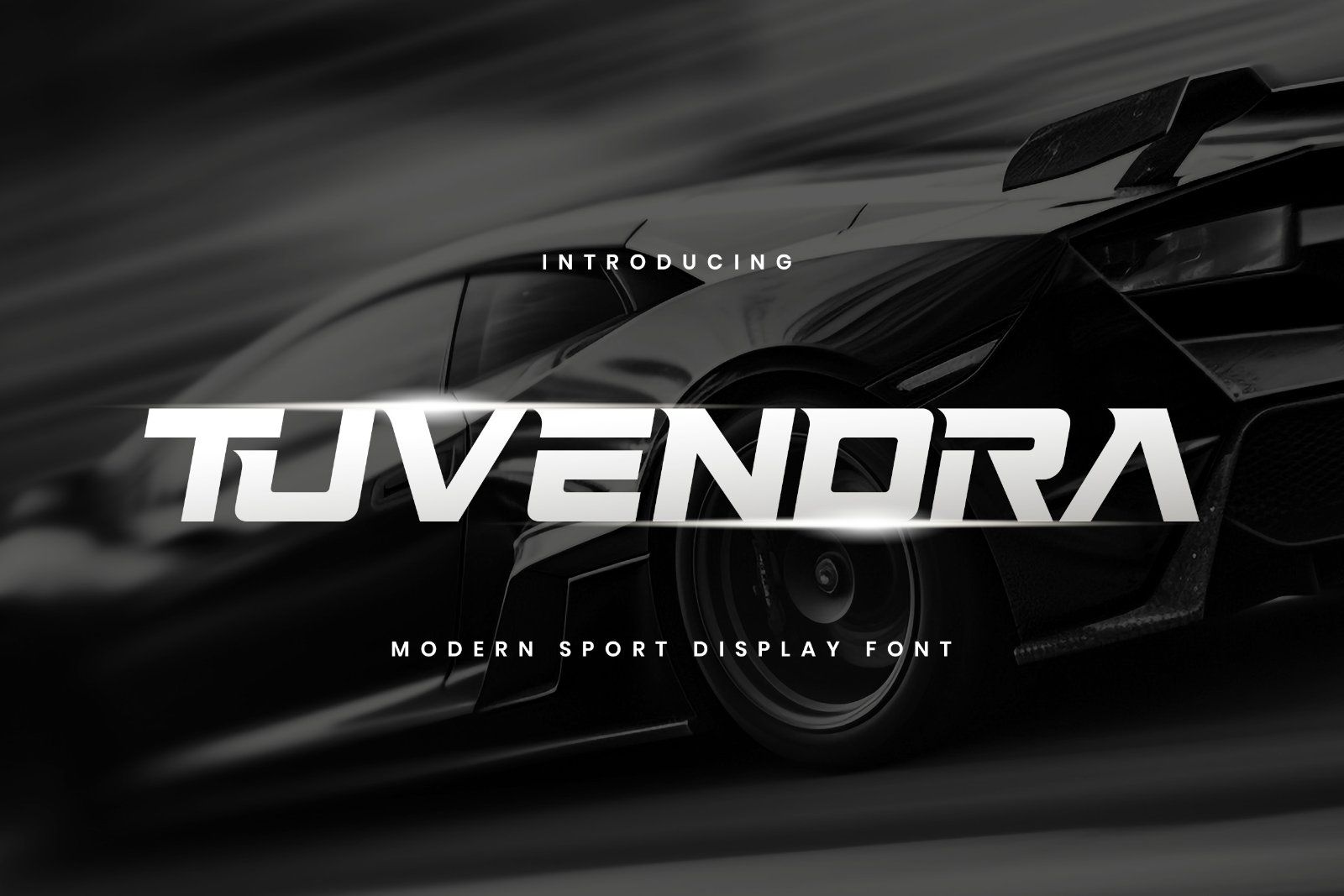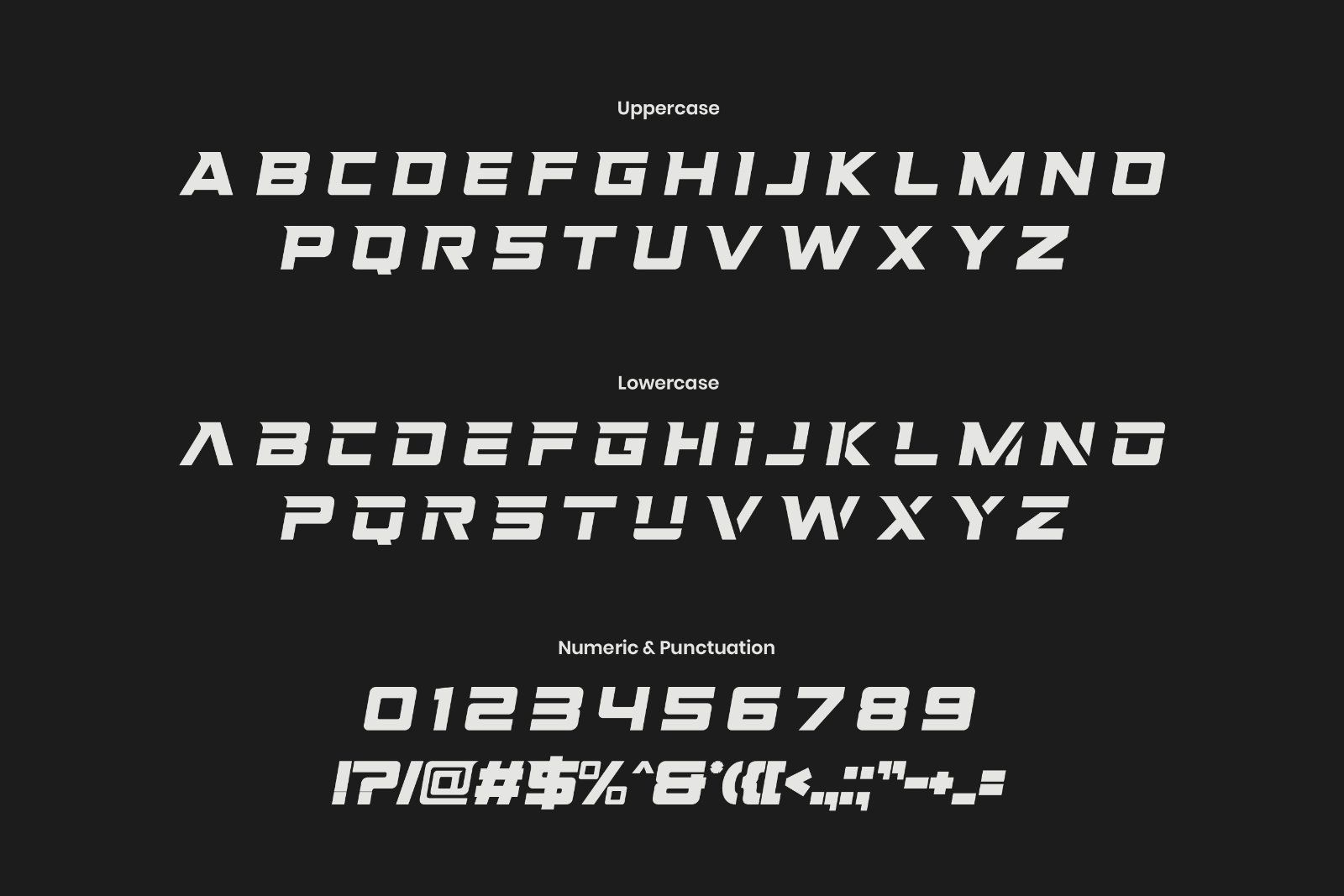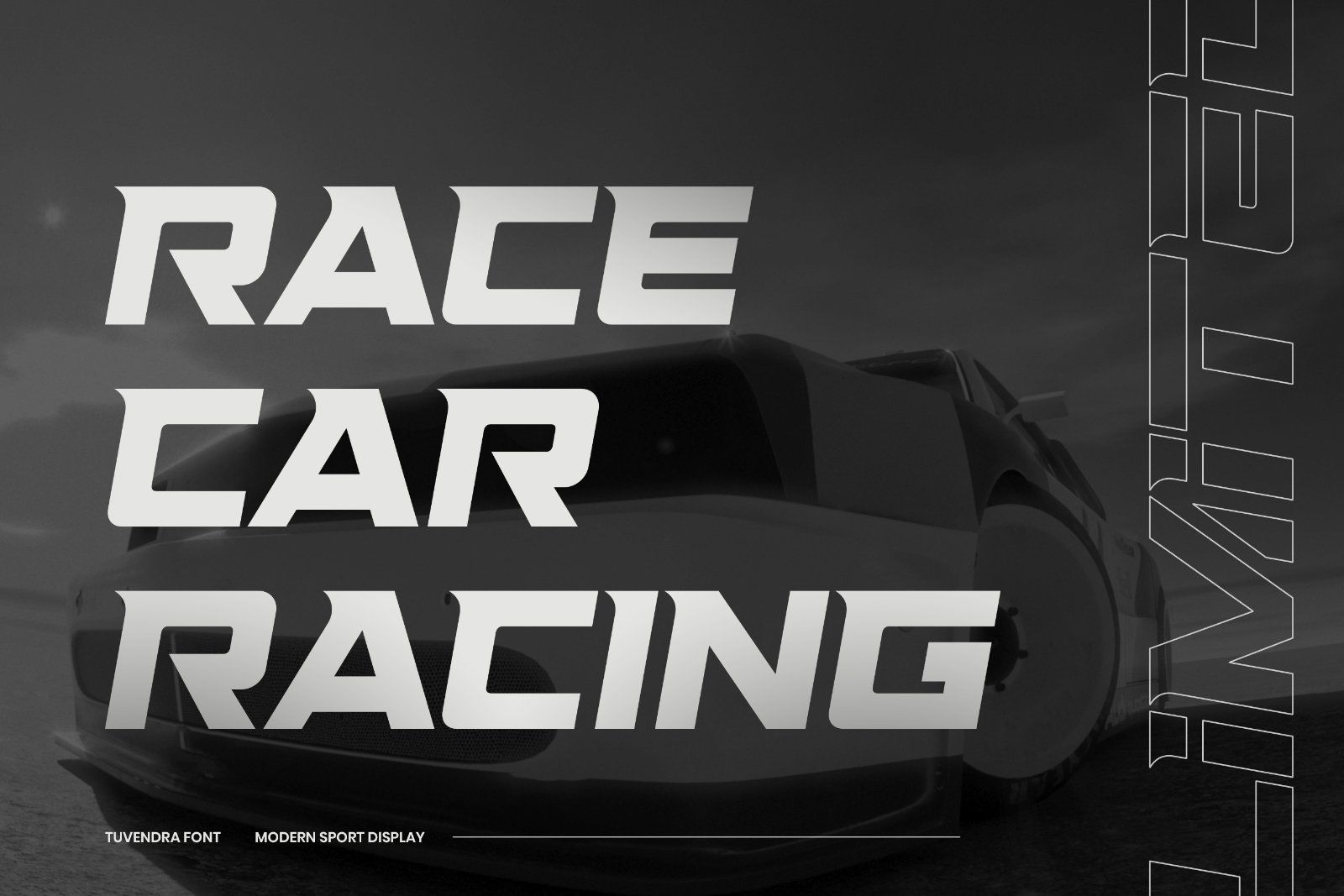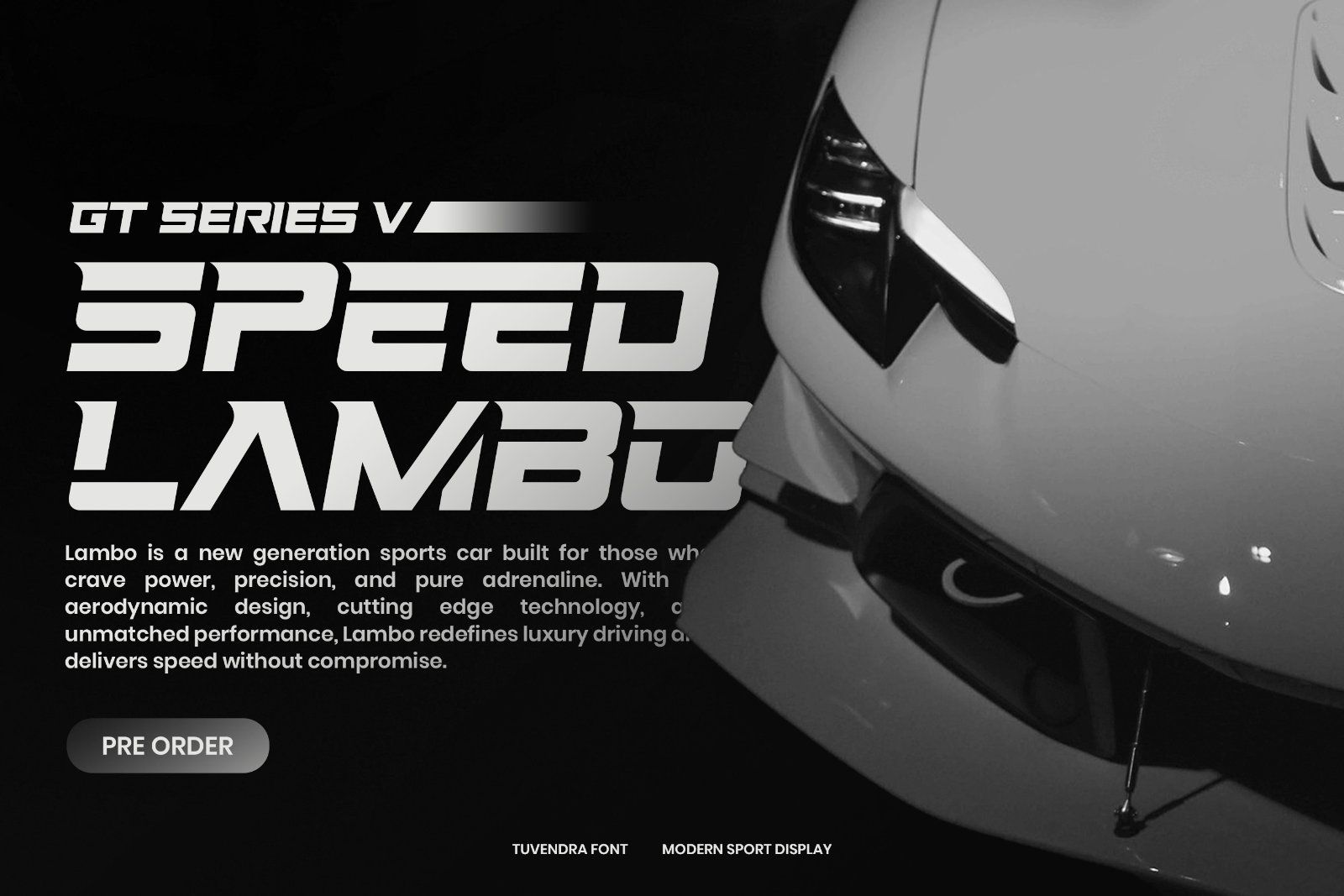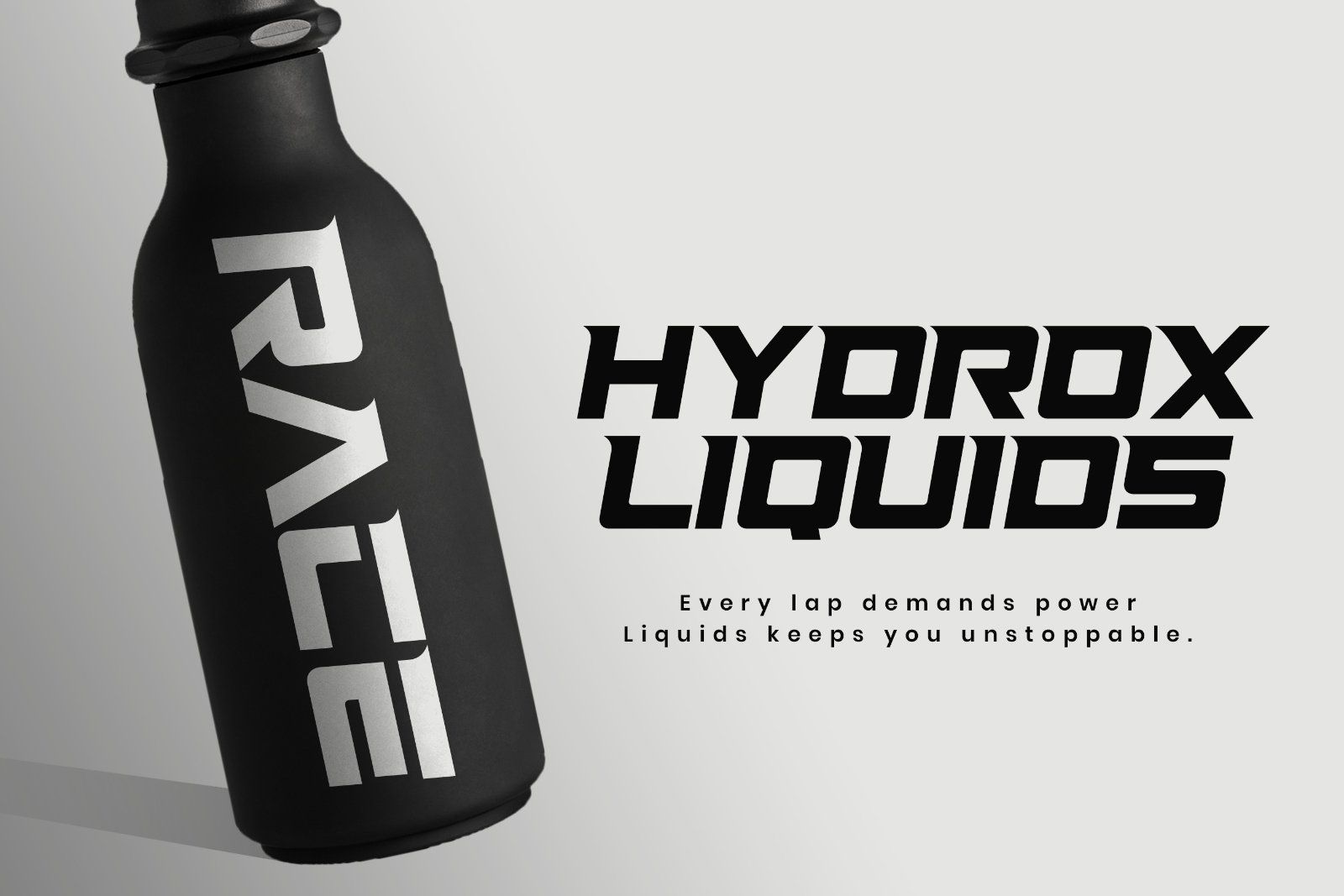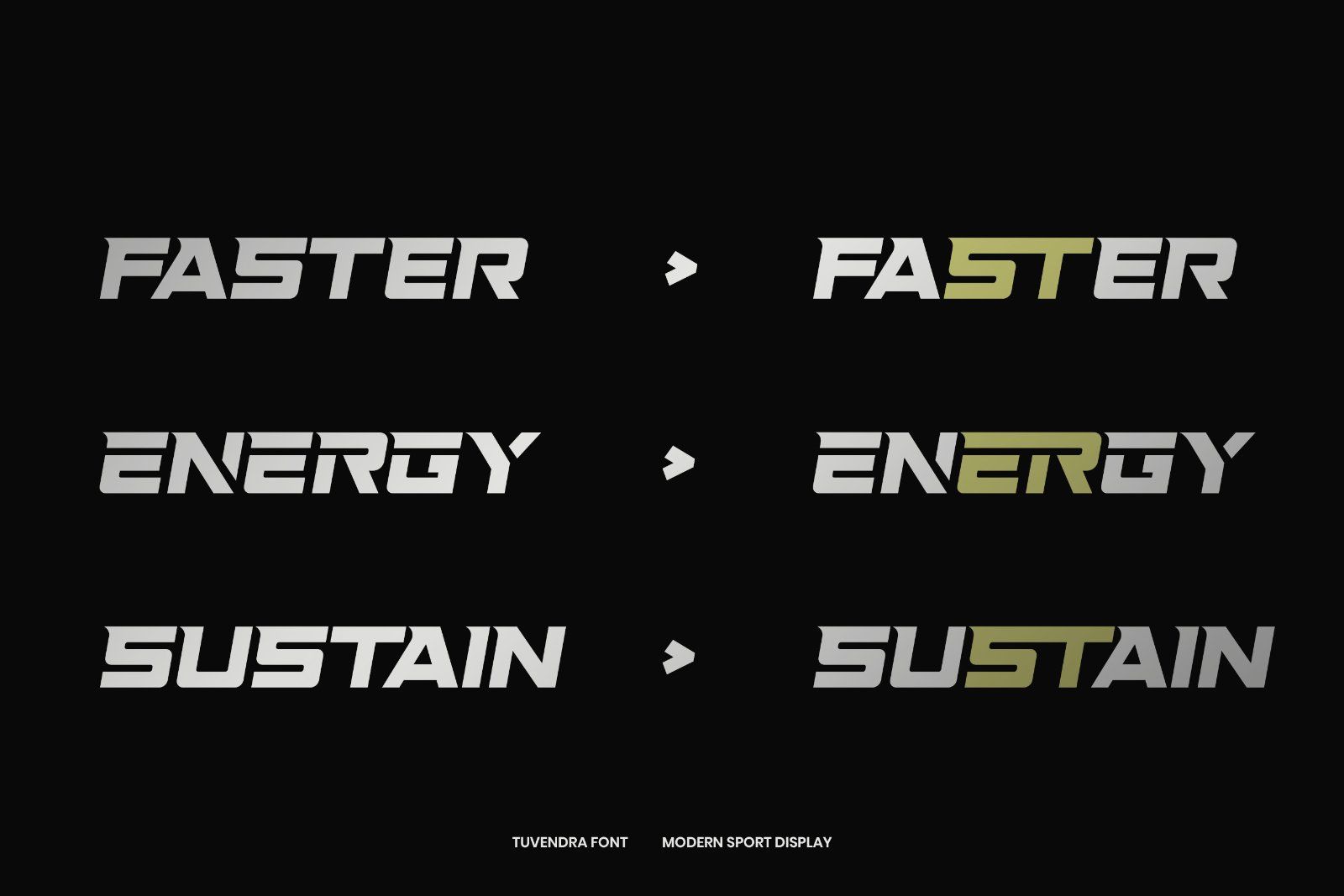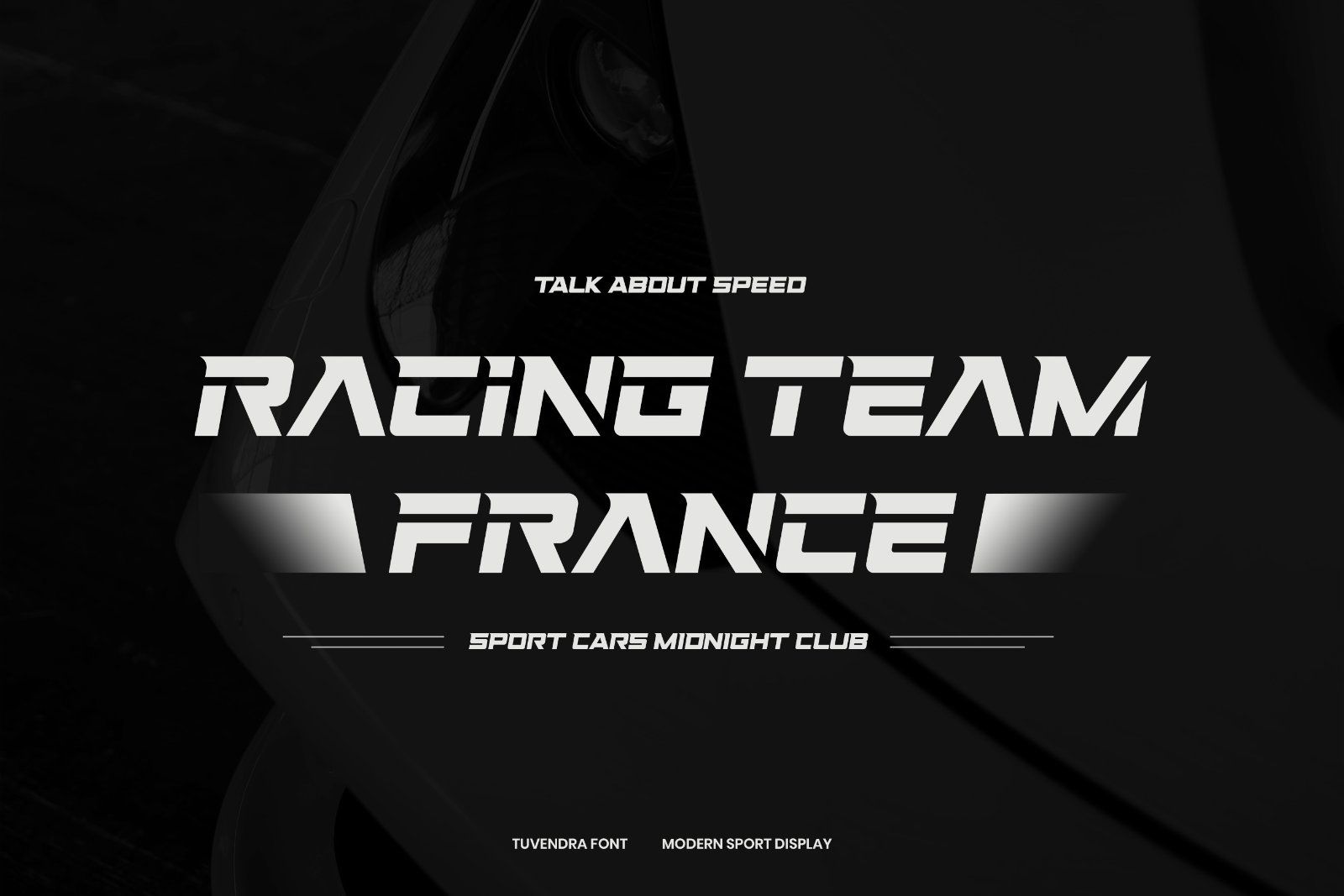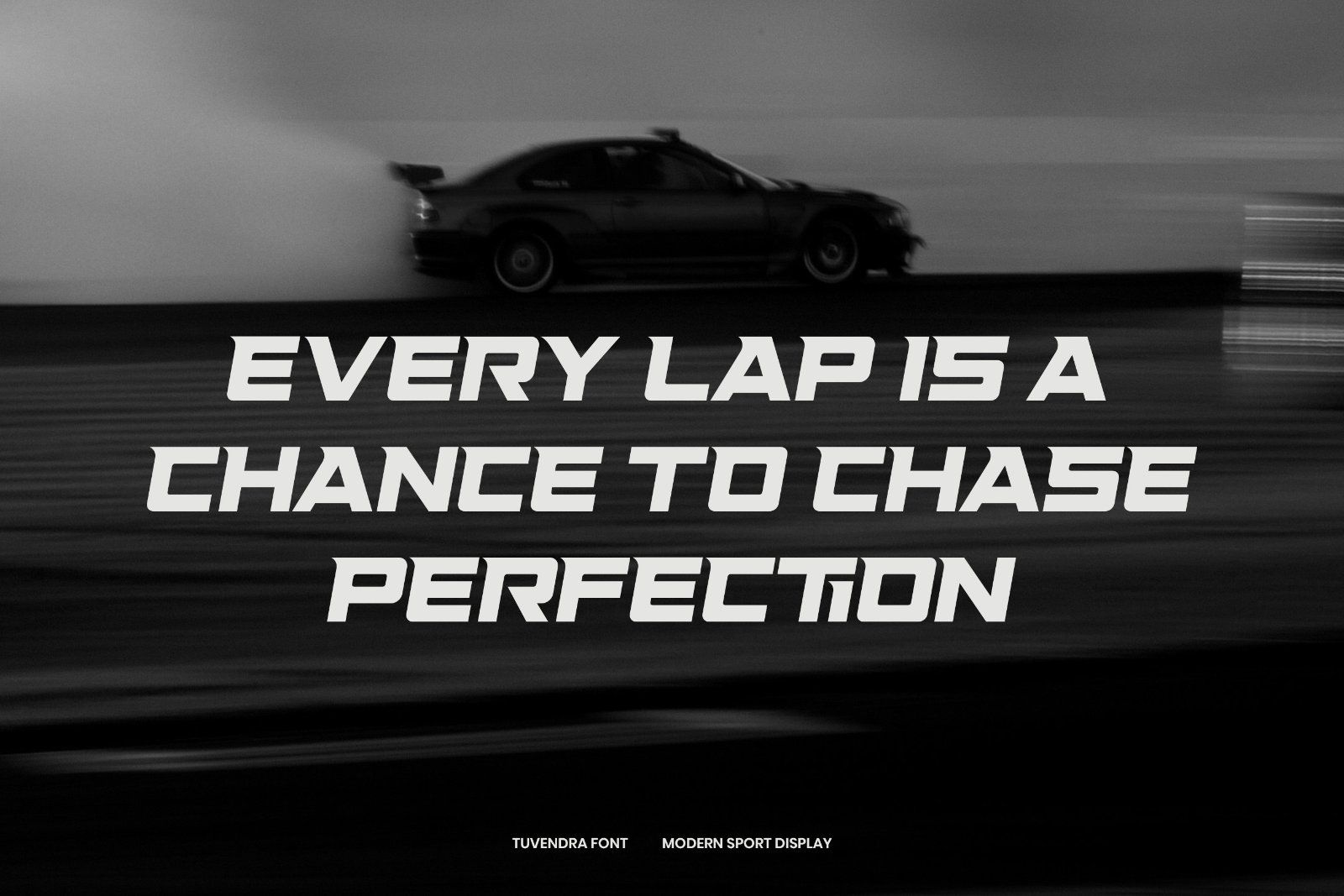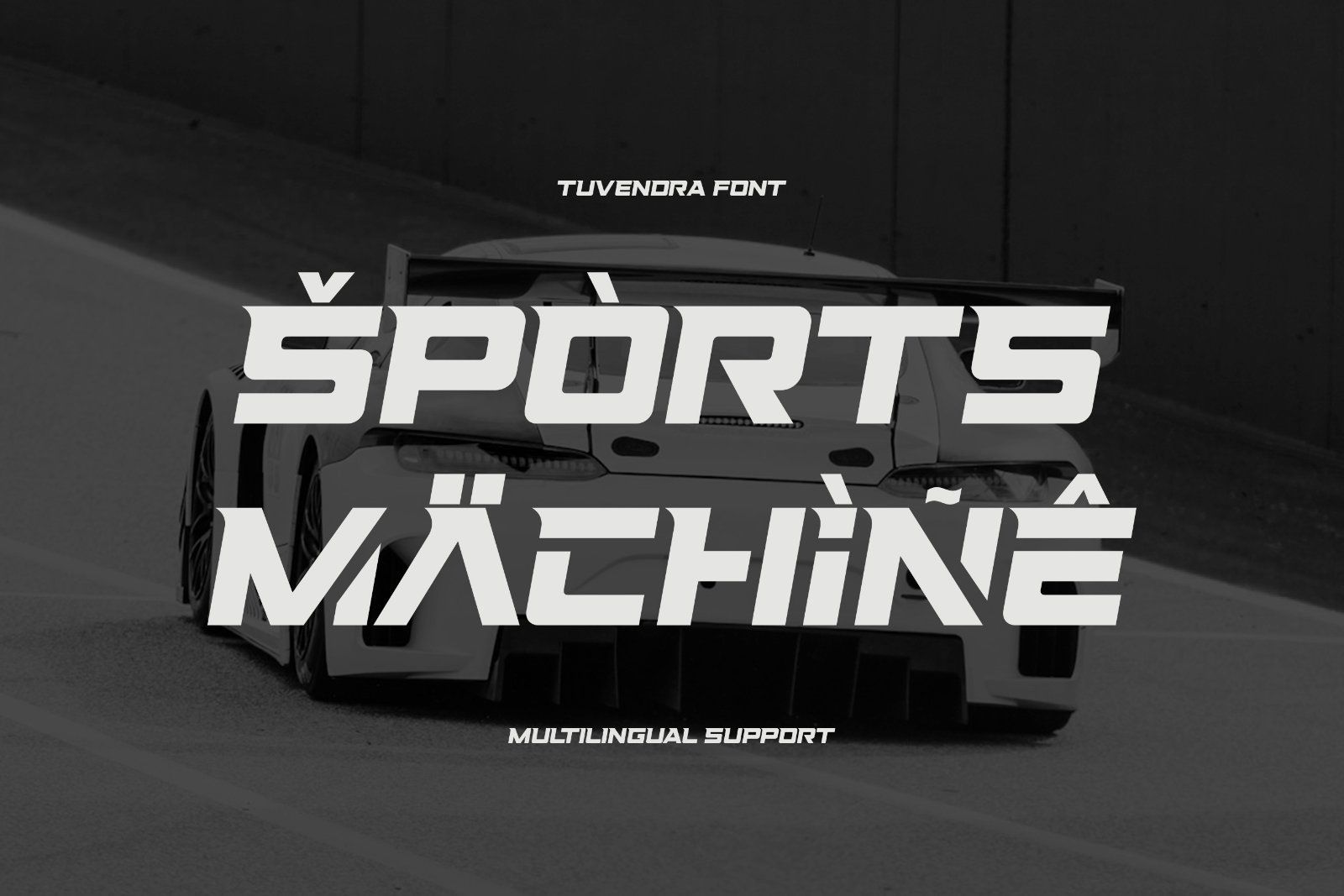
Tuvendra is a modern sport display font designed for speed, power, and precision. With its sharp angles, aerodynamic flow, and bold presence, Tuvendra captures the spirit of racing and high-performance energy. Packed with stylish details and versatile forms, it’s perfect for sports branding, automotive projects, posters, jerseys, and impactful headlines.
• Uppercase alphabet A-Z
• Lowercase alphabet a-z
• Numbers 0-9
• Some punctuation
• Some Alternates and Ligatures